Unfinished Bauhaus Typefaces Are Now at Your Fingertips
Adobe and the Bauhaus Dessau Foundation teamed up to turn fragments of five unfinished typeface designs from the 1920s and '30s into full-fledged digital typefaces.
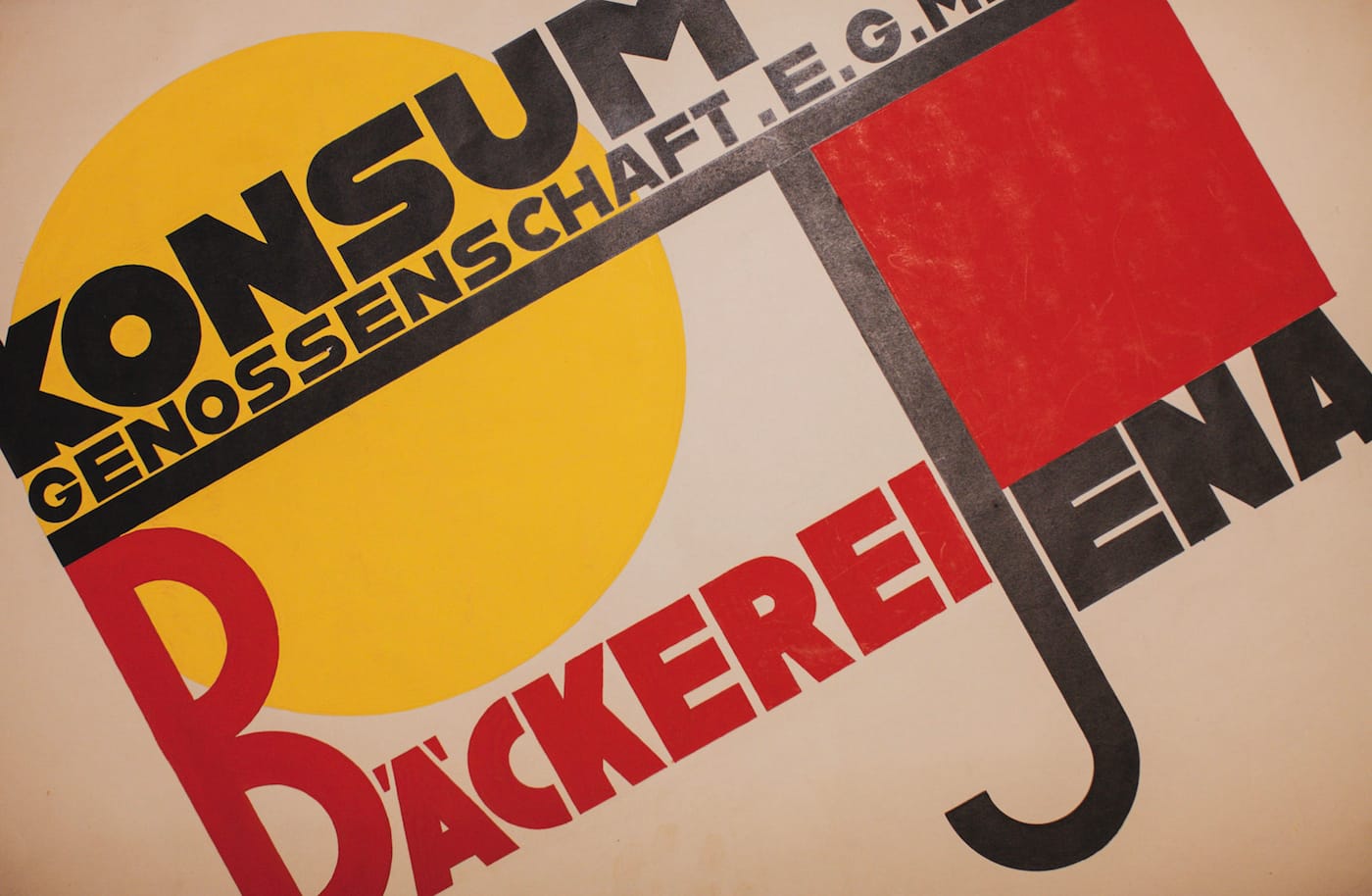
If you start feeling like you’re seeing Bauhaus-style typefaces everywhere, don’t worry, you’re not hallucinating a Modernist design resurgence. Last week, Adobe announced the launch of “The Hidden Treasures — Bauhaus Dessau,” a campaign led by typeface designer Erik Spiekermann to turn fragments and sketches from the Bauhaus archives into functional fonts for Adobe Typekit. (You may remember the first iteration of Adobe’s Hidden Treasures project: digital versions of Edvard Munch’s brushstrokes.) The first two Bauhas-derived typefaces, Xants and Joschmi, are now available to download through Adobe Typekit.
Plenty of work was left unfinished when Bauhaus Dessau was closed abruptly in 1932 by the National Socialist Party. Among the archives, designs by Joost Schmidt, Alfred Arndt, Carl Marx, Xanti Schawinsk, and Reinhold Rossig were incomplete, some of them existing simply as rough sketches. Spiekermann, along with the Bauhaus Dessau Foundation, supervised a team of design students and typography professionals who turned work by these designers into five font sets. The designs selected “each had different merits, showed variation and could actually be expanded into usable type,” Spiekermann told Hyperallergic over email.
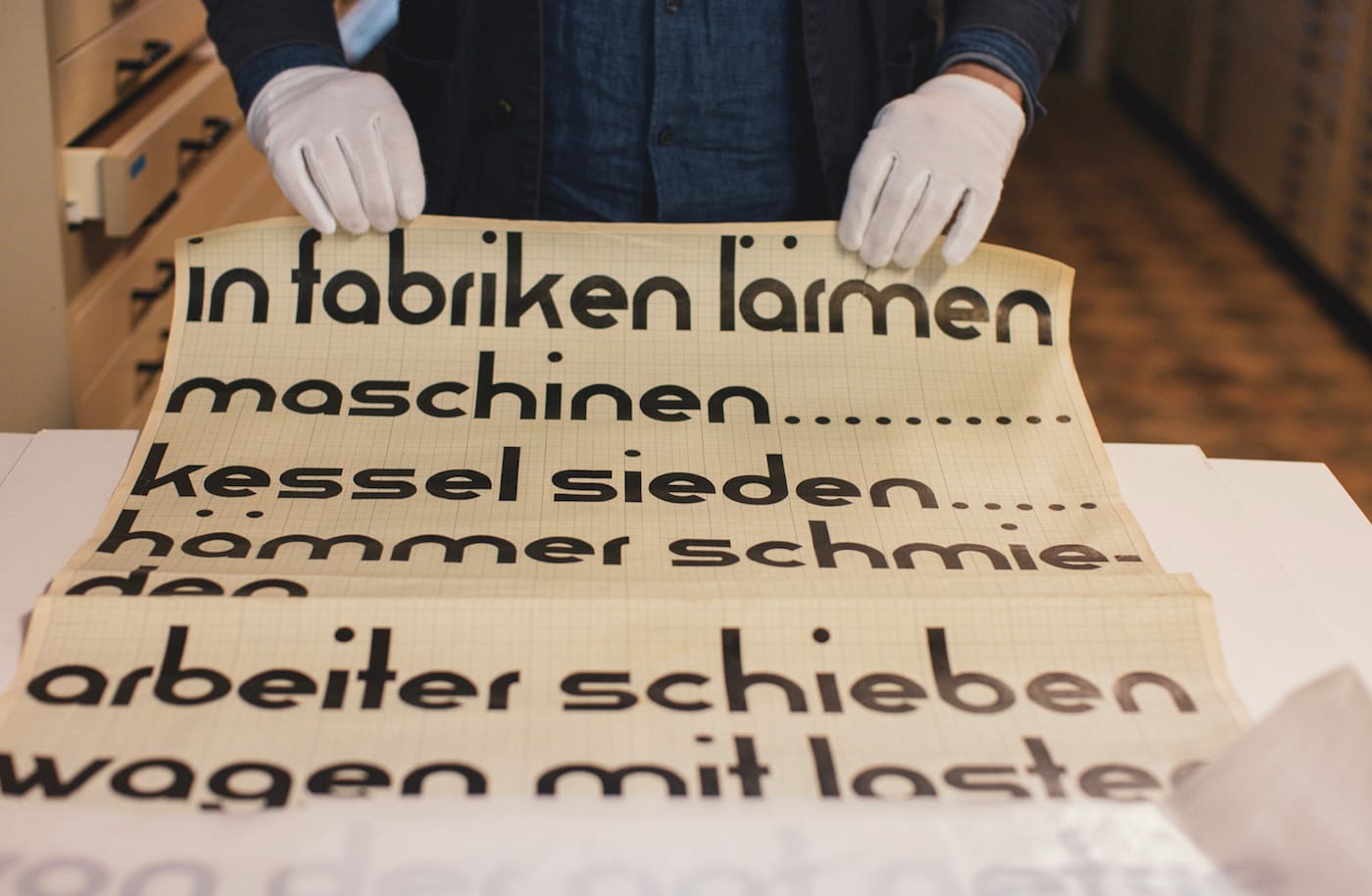
The process required digging into the Bauhaus archives, and for both Spiekermann and the design students, the experience was not unlike unearthing gems. The designs, which were all hand-rendered, had their own small flaws and quirks, the marks of works in progress or those left to time.
“It was a great pleasure,” Spiekermann said. “We ‘know’ most art simply from reproduction which usually neither indicate the real scale nor precisely show how the materials were used — like brushstrokes or other irregularities. The sketches were all much larger than we thought — I had seen some of them in the original before, but not all — the traces of the hand were more visible, and the colors were more vivid.”
Rendering the designs into digital fonts was an exercise in imaginative deviation; not all of them had been developed into full alphabets. “Some — most — of the Bauhaus exercises were about fitting the Roman alphabet into a geometric grid,” Spiekermann said. “We know that this method will not yield legible type, so we knew that we had to deviate quite a bit at times … . In other instances, we had to ignore some of the attempts to make legible letters rather than geometric shapes inspired by letterforms. The sketches were all quite naïve when it came to those issues.”
Luckily, the designers “know what it takes to turn a rough sketch into a working typeface,” Spiekermann added. “A type designer needs to be modest and not show off how good she is and what tricks she has up her sleeve. In this case, that meant we would have slowly and subtly guided the Bauhaus students toward designing type, had we been around then and had we had those tools available that we possess today.”
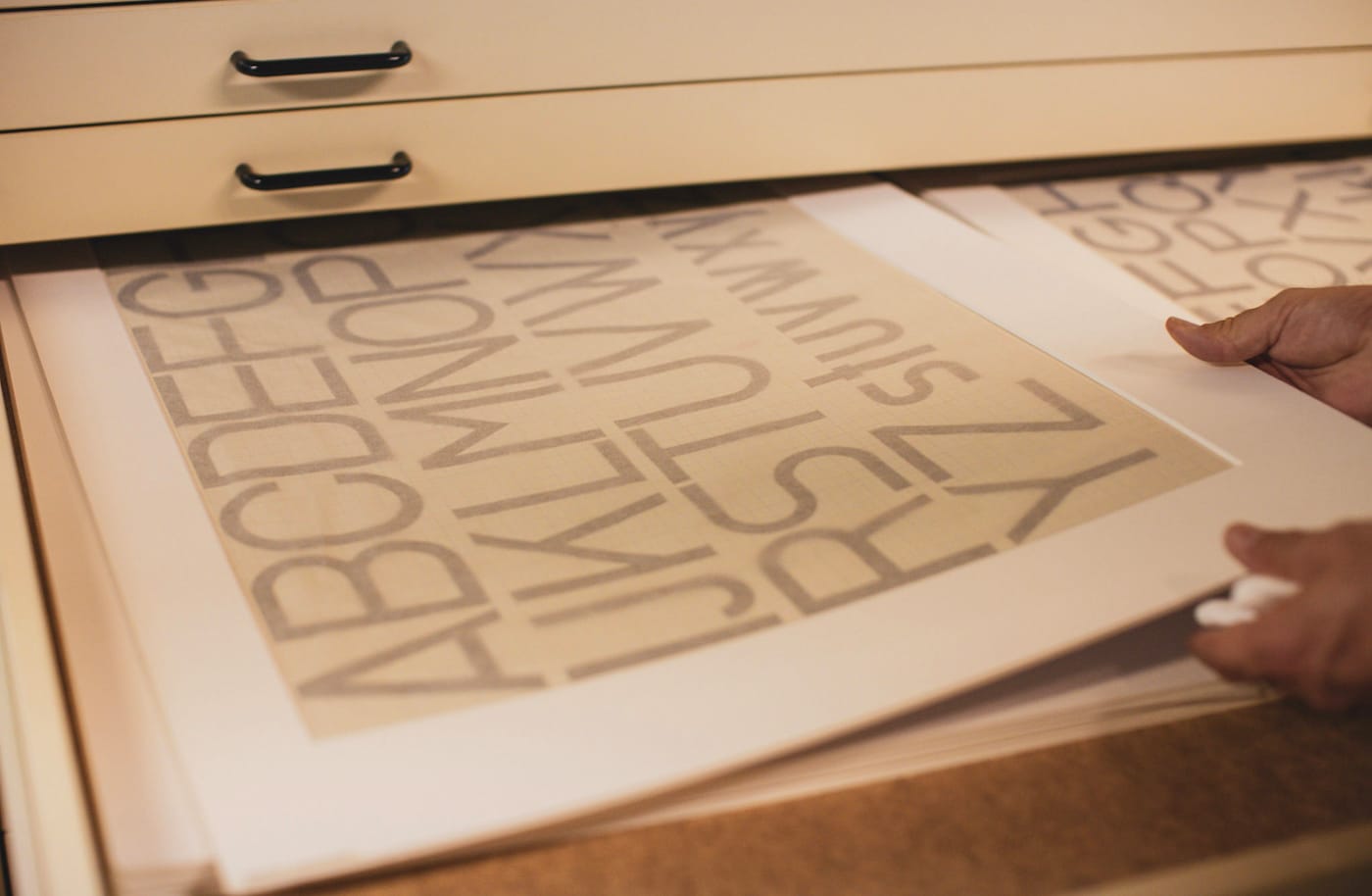
The resulting fonts are a delight to view and even better to put to use. In fact, you’ve seen a digital typeface born this way (almost) before. The Bauhaus 93 typeface is thick, bold, and available in the dropdown menu on Microsoft Word; it was used on the title screens for Super Mario Bros. (1 and 2!), in the copy for Disney’s Polynesian Village Resort, and, oddly enough, for the children’s film Postman Pat. Bauhaus design’s Modernist pedigree belies its wide accessibility; save for their appeals to children and the use of the typeface itself, the aforementioned cultural properties have little in common. Bauhaus 93 is a version of the Blippo typeface, which itself was designed by Joe Taylor as a darker version of Burko Bold — and Burko is based on another unfinished Bauhaus design.
Over the next several months, the remaining three “Adobe Hidden Treasures — Bauhaus Dessau” typefaces will be made available for download, and Adobe will launch five challenges for designers and artists to put these new tools to use.